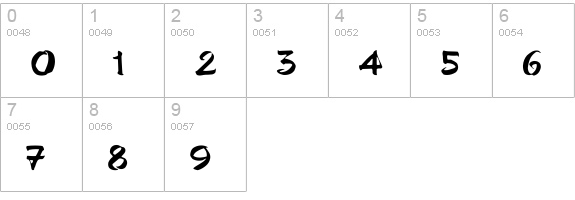
PoloSemiScript-Normal Font Details
PoloSemiScript-Normal is the standard, neutral variant in the PoloSemiScript typeface family \xE2\x80\x94 well suited to general body text, paragraphs, and standard typographic work.
PoloSemiScript-Normal font is a stylish and versatile typeface that is perfect for various design projects. With its elegant and modern appearance, this font exudes sophistication and class. The smooth curves and balanced letterforms make it easy to read and pleasing to the eye. What sets PoloSemiScript-Normal font apart is that it is available for free download at FontsMarket.com. This means you can enjoy all the benefits of this beautiful font without any cost. Whether you're creating invitations, branding materials, or any other design project, PoloSemiScript-Normal font will elevate your work with its timeless charm and professional look. Download PoloSemiScript-Normal font today from FontsMarket.com and enhance your designs with this stunning typeface that is both elegant and free to use.